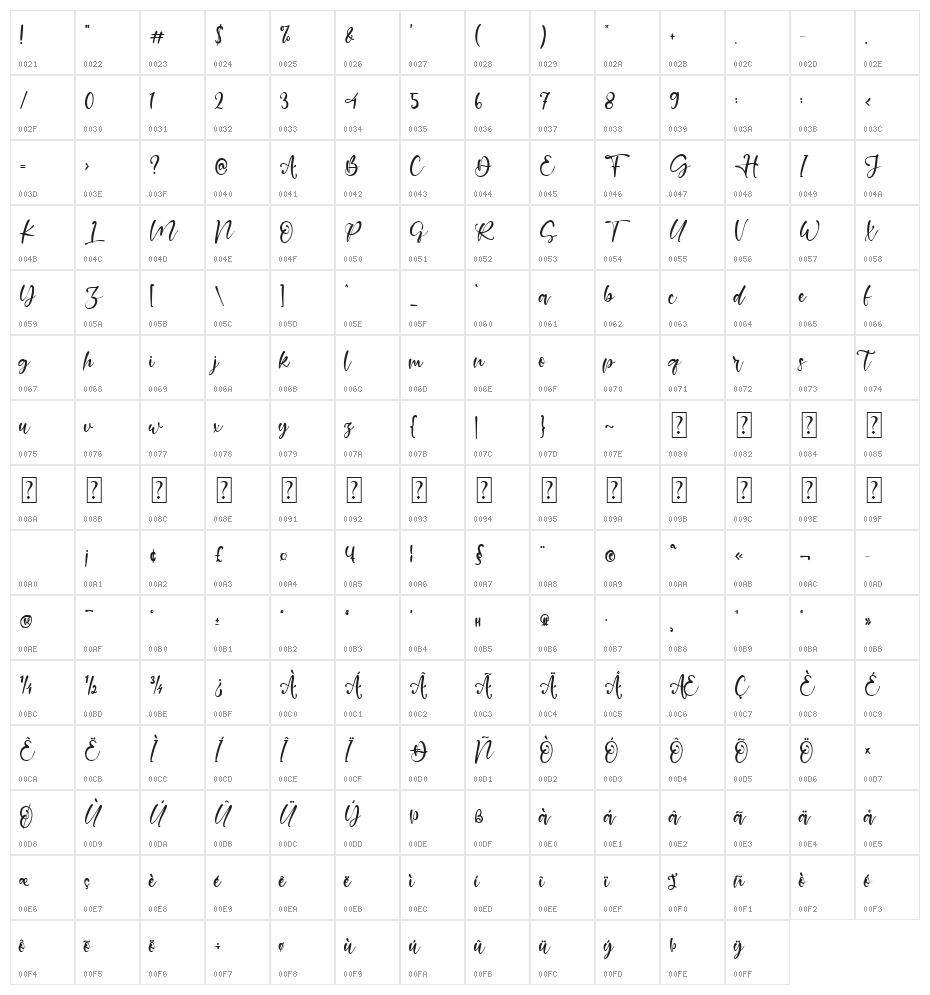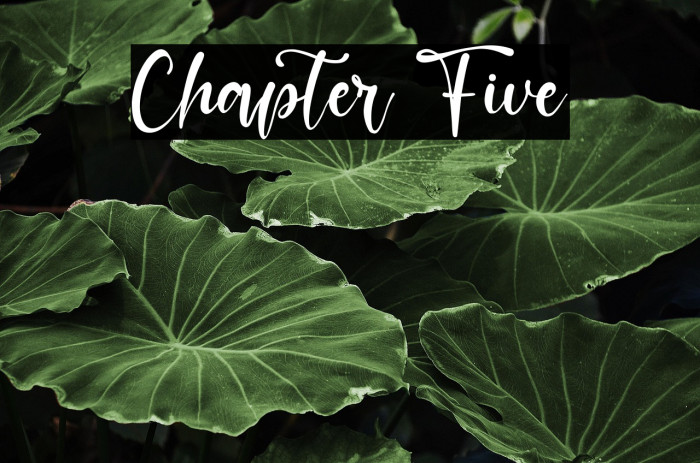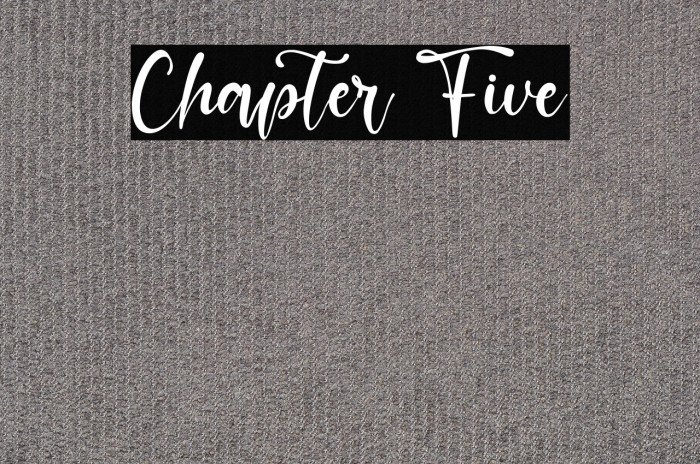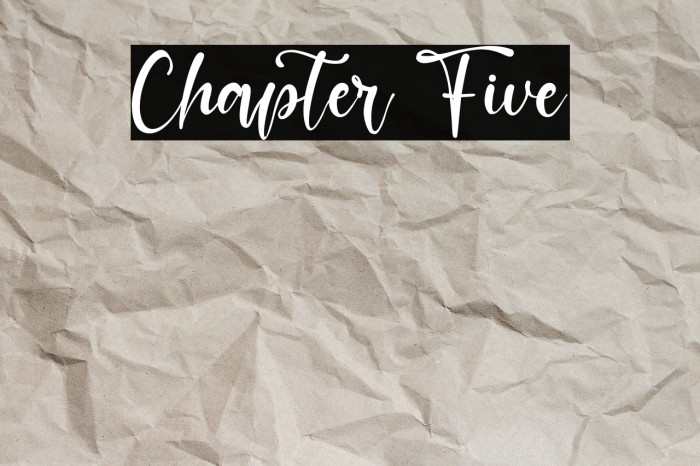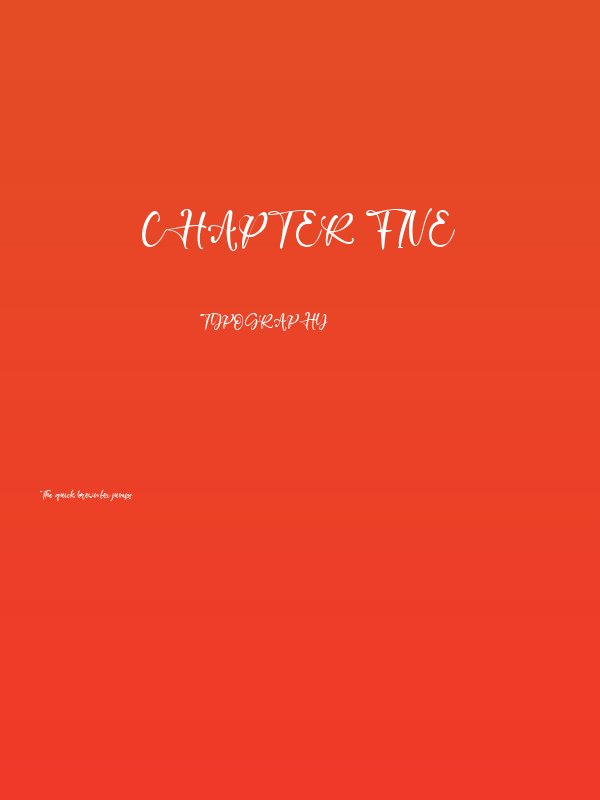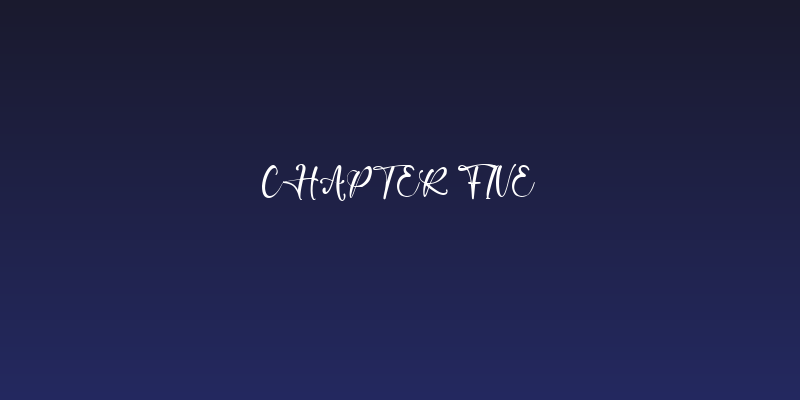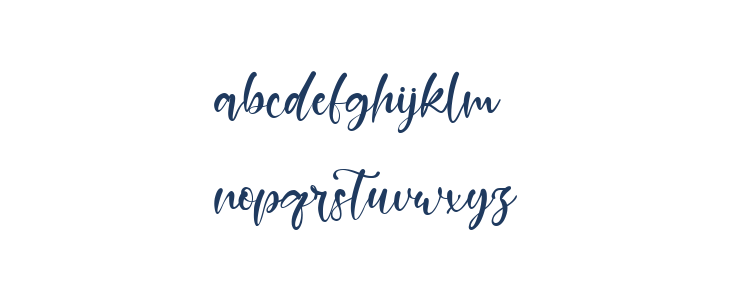
Chapter Five Font
Chapter Five Description
This font features an elegant and flowing script style, characterized by its smooth, cursive letterforms. The uppercase letters exhibit a graceful, sweeping motion with distinctive loops and flourishes, while the lowercase letters maintain a consistent, connected flow. The numerals and special characters complement the overall aesthetic with their rounded and fluid shapes. This font exudes a sense of sophistication and charm, making it ideal for projects that require a touch of elegance and personality.
| Overall Style | Elegant |
| Use Case | Logos, Invitations, Decorative text |
| Proposed Projects | Ideal for wedding invitations, greeting cards, branding, and elegant signage. |